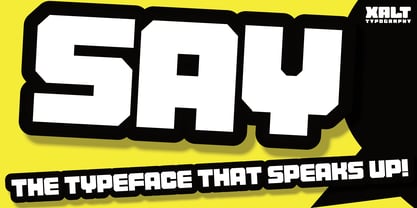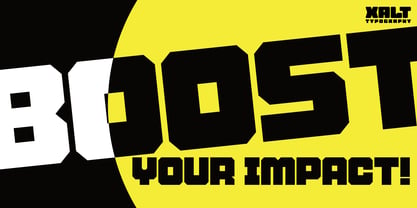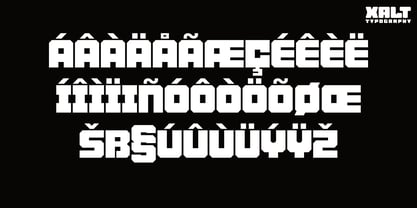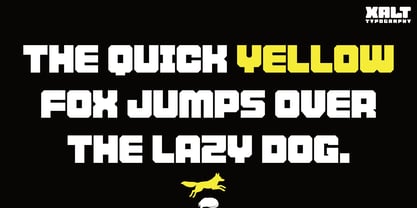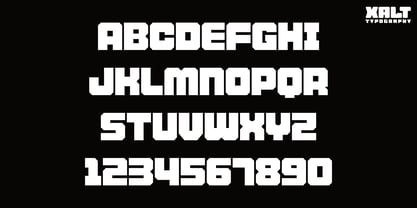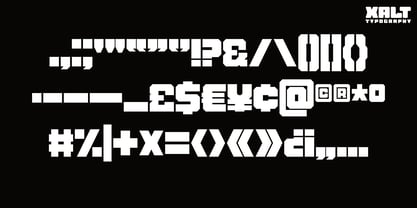
The Say Font Family was designed by Asa Childress and published by XALT Typography. Say contains 1 styles. More about this family
If you're looking to make an impact and have a voice, SAY is an excellent choice!
It's big, bold and ready to amplify your message with confidence and style.
Say was designed with mathematical precision down to the smallest detail. Every line and angle was meticulously measured to create a display font you can rely on. No matter what you type, it effortlessly communicates your message with impact.
Here's why you should add SAY to your toolkit:
• Super versatile: This big & bold display font is suitable for a wide variety of projects from graphic design and marketing to logos and branding.
• Unique characteristics: With its distinct structure and style, Say is completely original, and was designed without reference to or direct inspiration from any other typeface.
• Extensive punctuation: All essential punctuation marks are included, carefully designed to compliment the Say typeface.
• Multi-lingual support: Extended Latin coverage for French, Spanish, Portuguese, Italian, German and more.
There's one thing left to Say... YES!